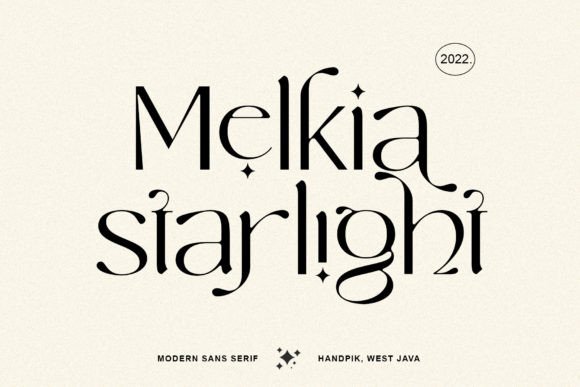
Looking to elevate your branding game? Look no further than the exquisite Melkia Starlight Font! This sans serif gem, created by handpik, is the perfect choice for all your branding needs. Its elegant and modern style will captivate your audience and leave a lasting impression.
Melkia Starlight Font is a versatile powerhouse that can be used for various purposes. Whether you're designing invitation cards, decorations, clothing products, greeting cards, or anything else, this font will effortlessly enhance the visual appeal of your creations. Its clean and sophisticated characters will add a touch of class to every project.
Crafted with meticulous attention to detail, Melkia Starlight Font is a true masterpiece. Each curve and line exudes professionalism and creativity, making it ideal for businesses of all kinds. With this font, your brand will stand out from the crowd and leave a memorable mark on your target audience.
But what sets Melkia Starlight Font apart from the rest? Its versatility and adaptability make it the best choice for branding. Whether you're a small startup or an established company, this font will seamlessly blend with your brand identity. It has the power to convey your brand values and personality with just a few strokes.
Not only does Melkia Starlight Font offer aesthetic appeal, but it also comes packed with functionality. With its wide range of characters and glyphs, you'll have endless creative possibilities at your fingertips. Let your imagination run wild and create stunning designs that truly reflect your brand's essence.
In a world where first impressions matter, Melkia Starlight Font ensures that your brand leaves a lasting impact. Its eye-catching style, combined with its emotional appeal, will draw in potential customers and keep them engaged. Don't settle for ordinary fonts when you can have something extraordinary.